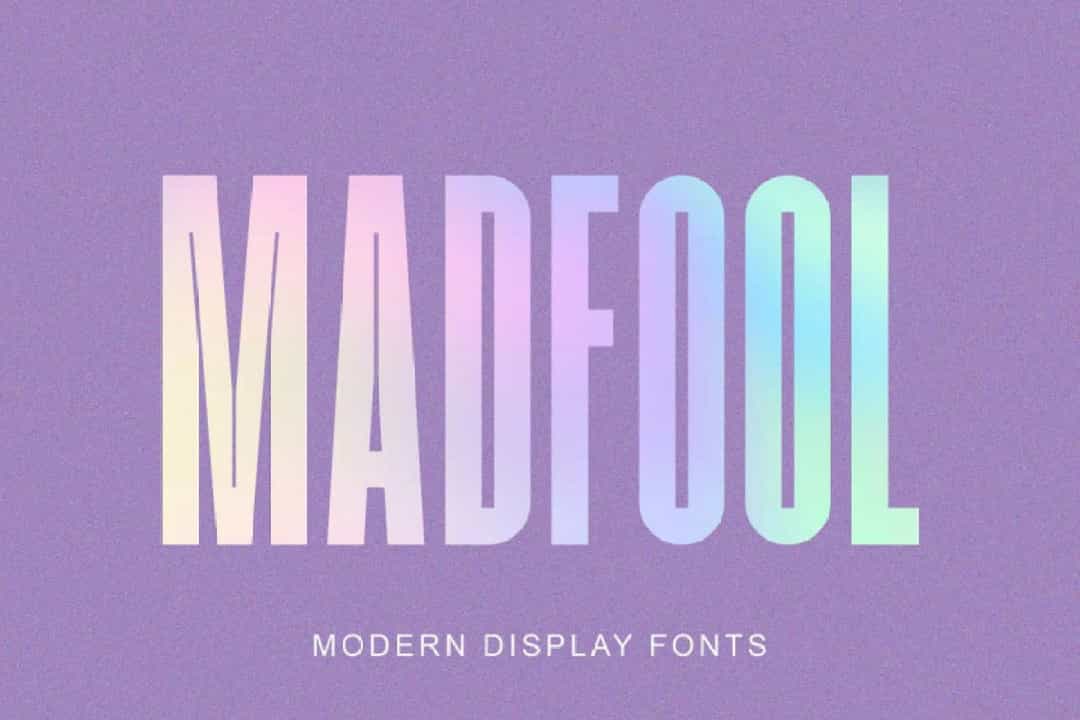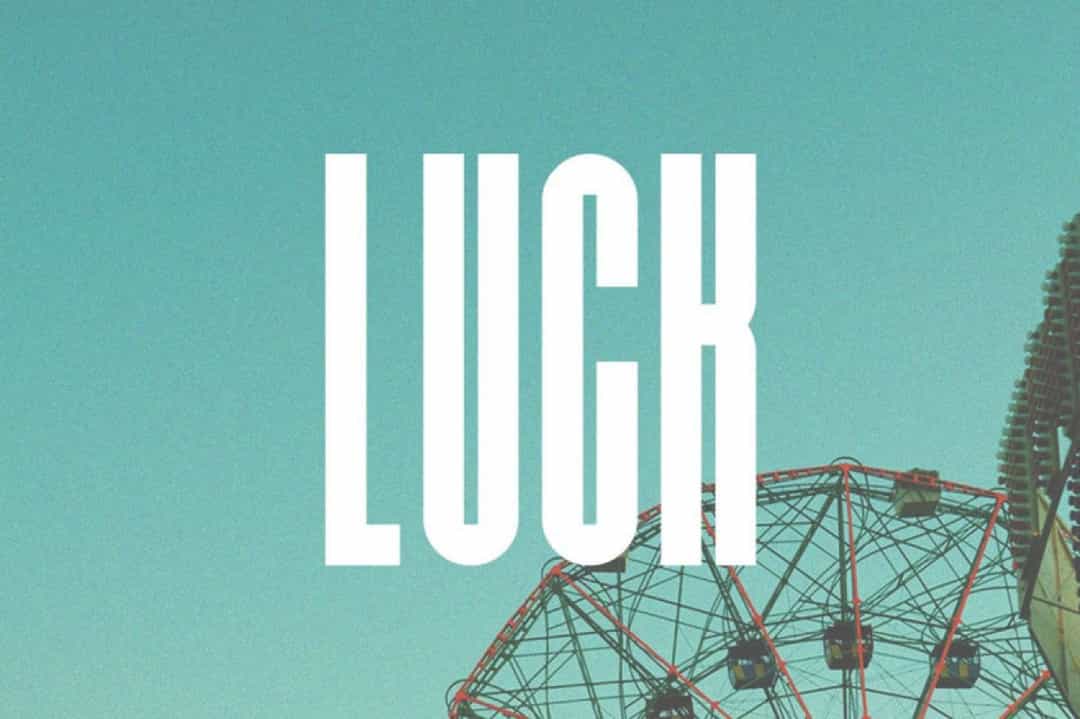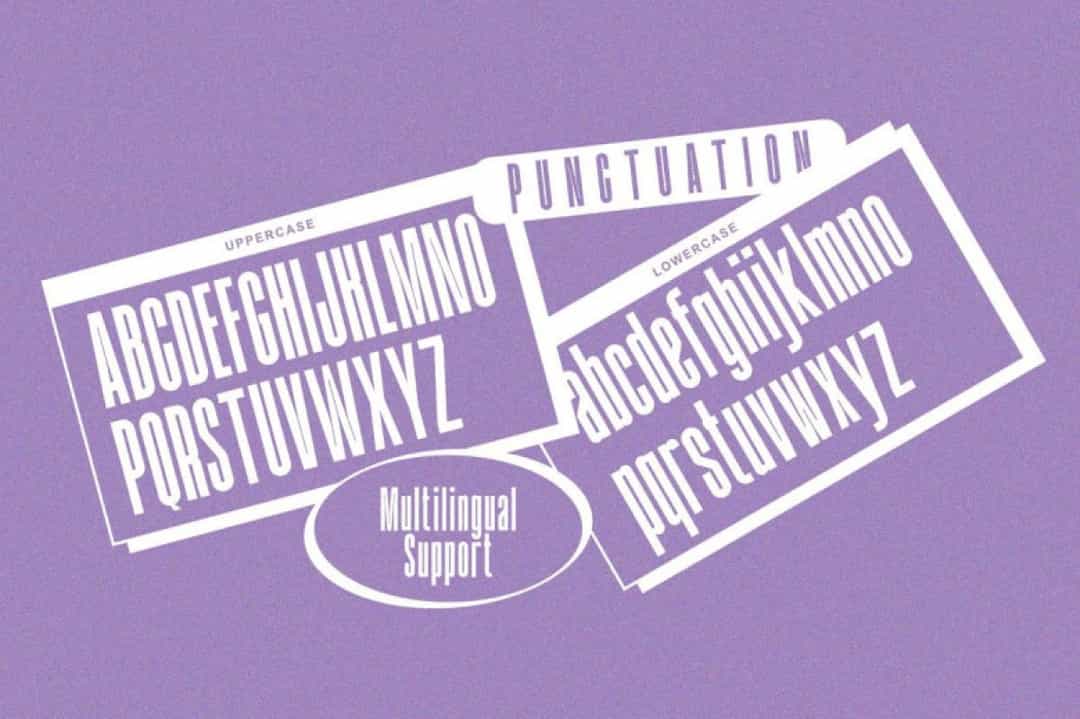
Madfool is an elegant large condensed sans serif typeface designed with bold strokes and playful characters to provide extra artistic work. If you’re searching for the ideal font with personality, Madfool could be just what you’re after – perfect if you need a typeface with personality! A timeless choice, Madfool makes an impressionful and sophisticated statement while remaining modern and clean sans serif font with its playful characters and strong identity.